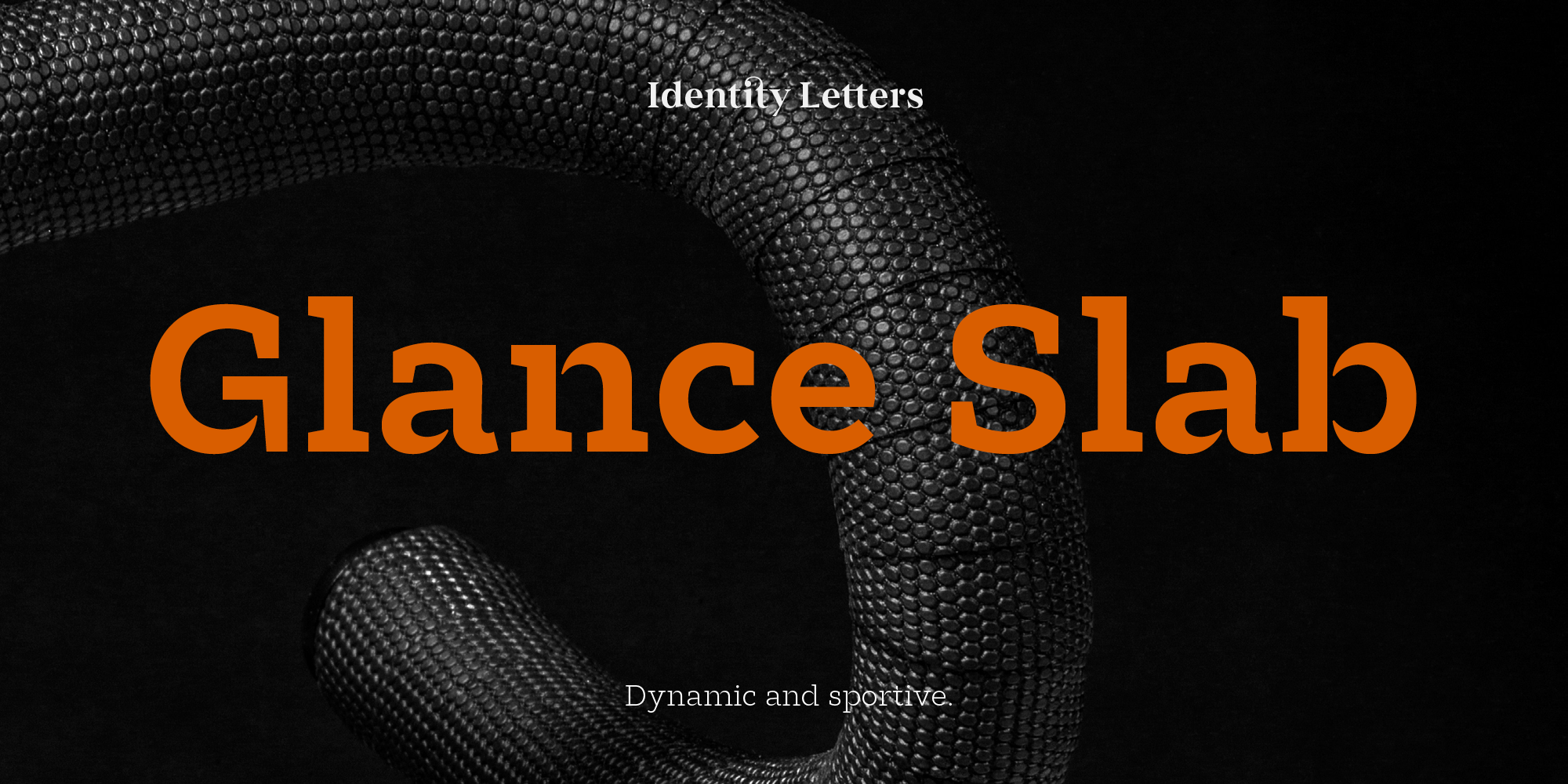
Discover the dynamic Glance Slab Font Free Download, a bold slab serif typeface designed by Moritz Kleinsorge that blends elegance with a sporty edge. This font is perfect for creating a striking, modern aesthetic. However, please note that you must purchase this font for commercial use. For testing purposes, you can download it for free and explore its unique style.
The Glance Slab Font is ideal for various applications, such as designing impactful branding materials, crafting eye-catching posters, creating bold billboards, or adding a vibrant touch to event signage. Its versatility, with 730 glyphs including circled numbers, arrows, and ligatures, makes it a top choice for projects that demand a recognizable, high-energy look.
Why is the Glance Slab Font Free Download so exciting? Its experimental design, with detached serifs and non-joining strokes, creates a stencil-like "sparkling" effect in large sizes while acting as ink traps for legible body copy in smaller sizes. This balance of movement and clarity, likened to an ice skater’s elegance and a quarterback’s determination, ensures your designs stand out with a distinctive, memorable flair.
The Glance Slab Font family includes eight styles: Thin, ExtraLight, Light, Regular, Medium, Bold, ExtraBold, and Black, each with matching italics, offering flexibility for diverse design needs. The 2024 update, harmonized with Glance Sans, includes an "Extreme Stencil" stylistic set for added creativity, perfect for both print and digital media.